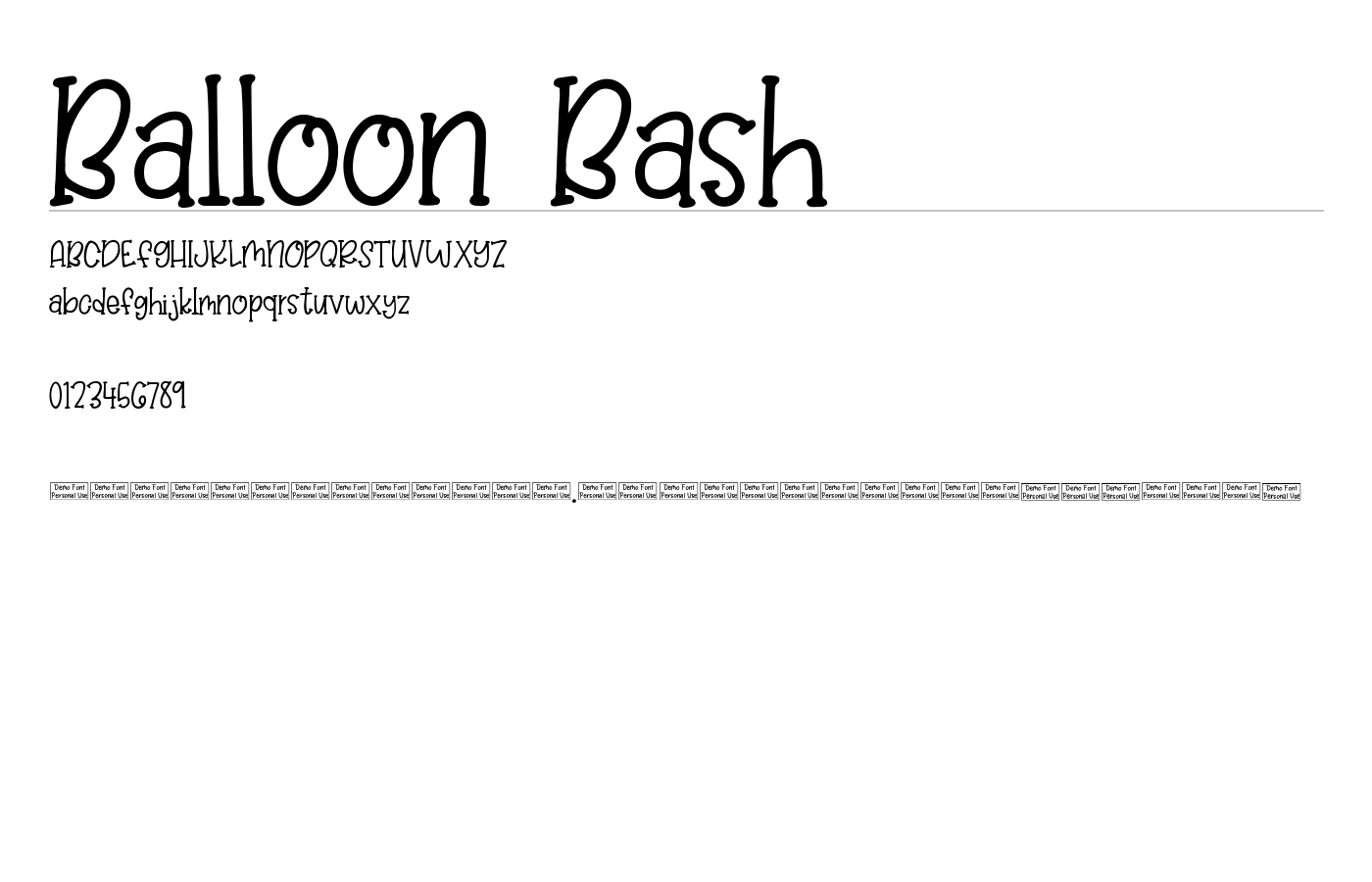
Balloon Bash is a playful, decorative serif font with a whimsical hand-drawn feel, featuring irregular shapes and rounded terminals that add charm and personality. Its light weight and narrow width create an airy, informal look perfect for party invitations, children’s products, or fun branding that seeks a friendly and approachable vibe. This font works best in headlines and short text where its quirky style can shine without sacrificing readability.
Balloon Bash Font
About Balloon Bash Font